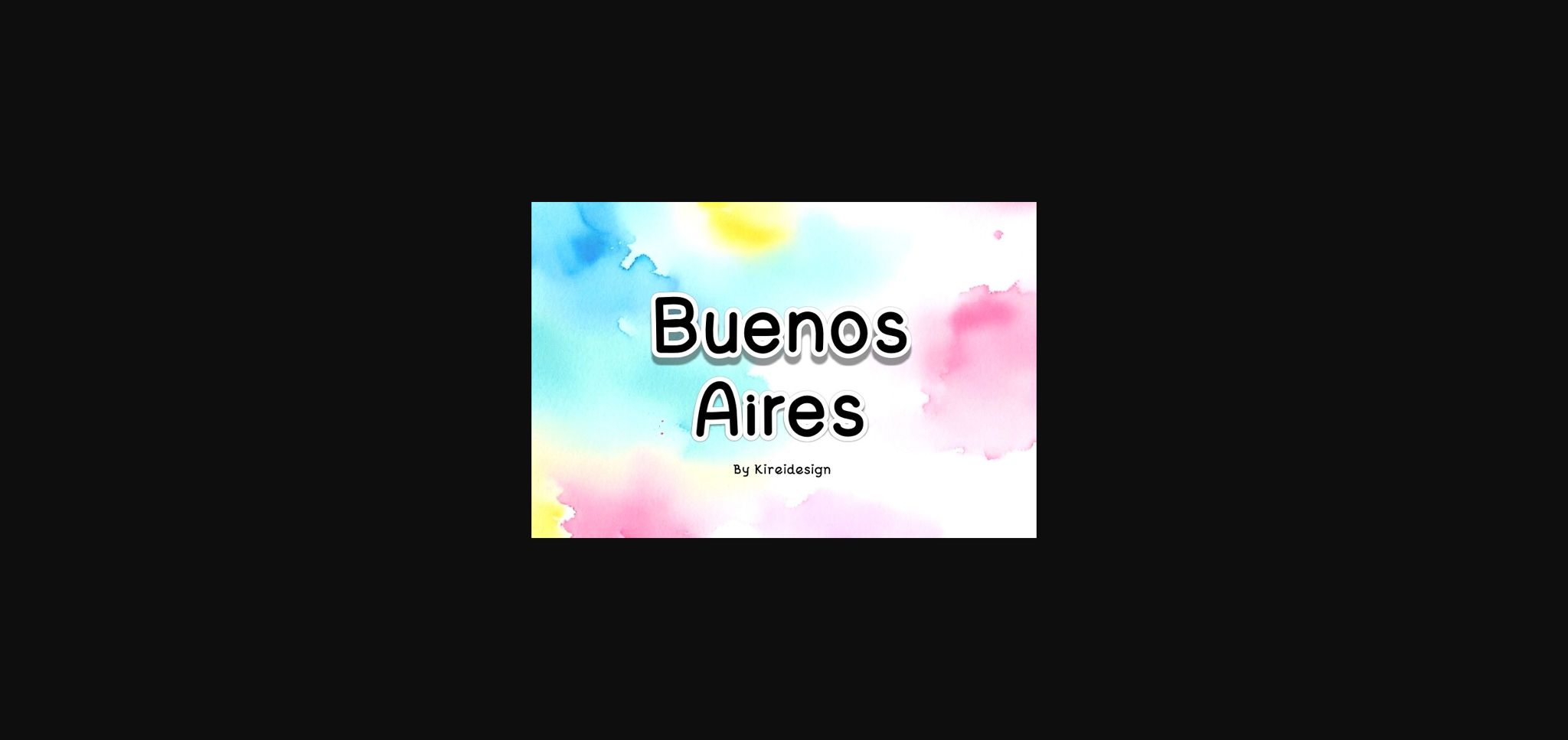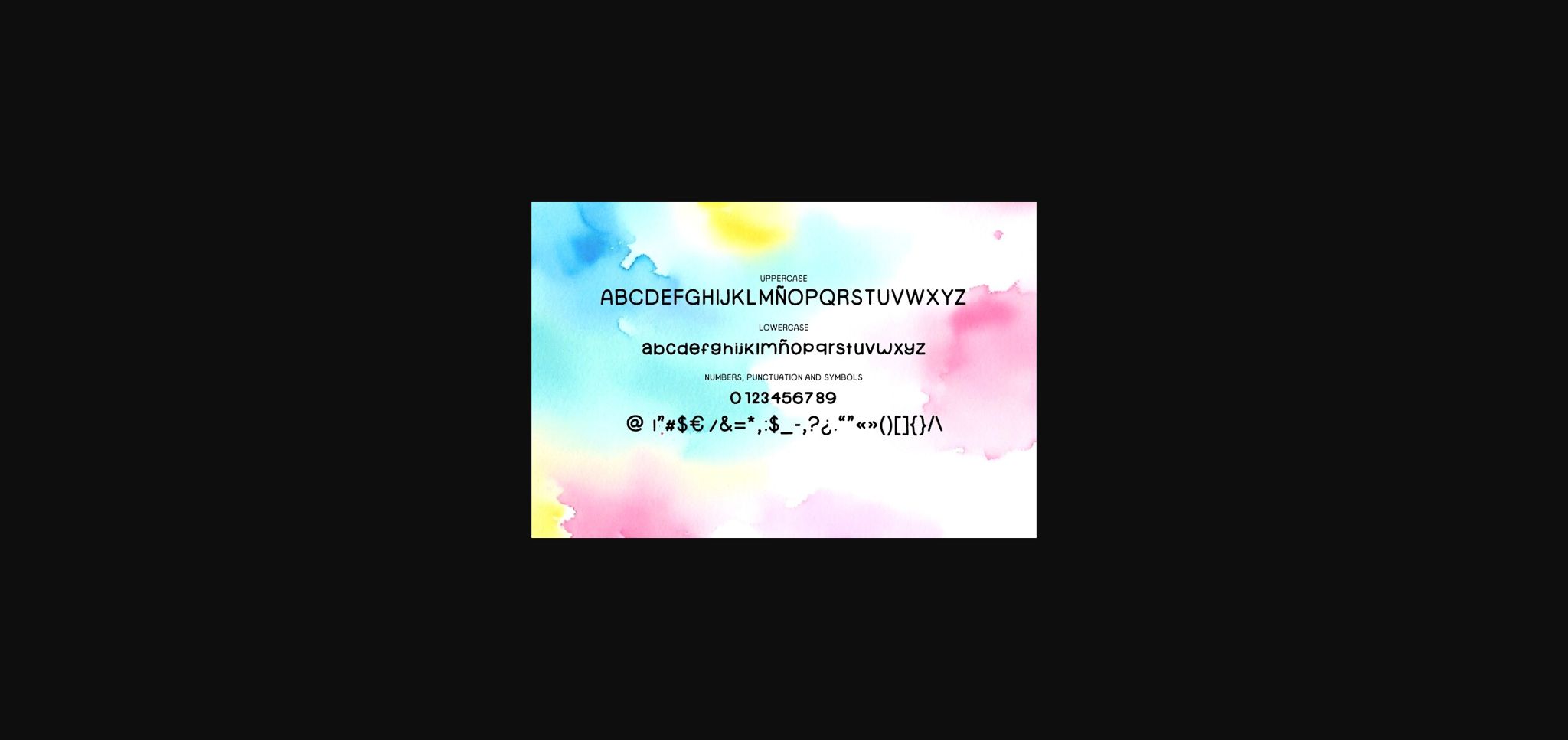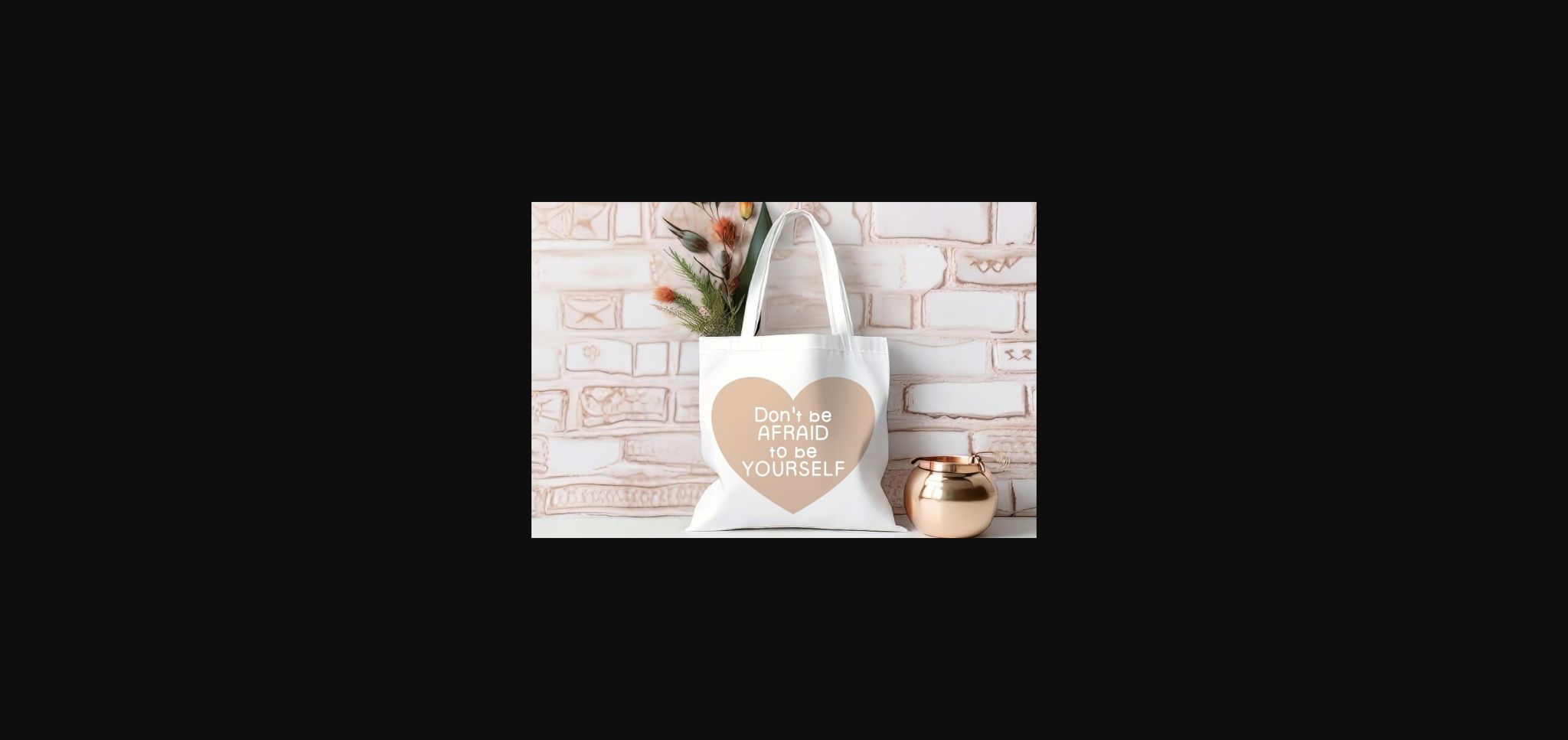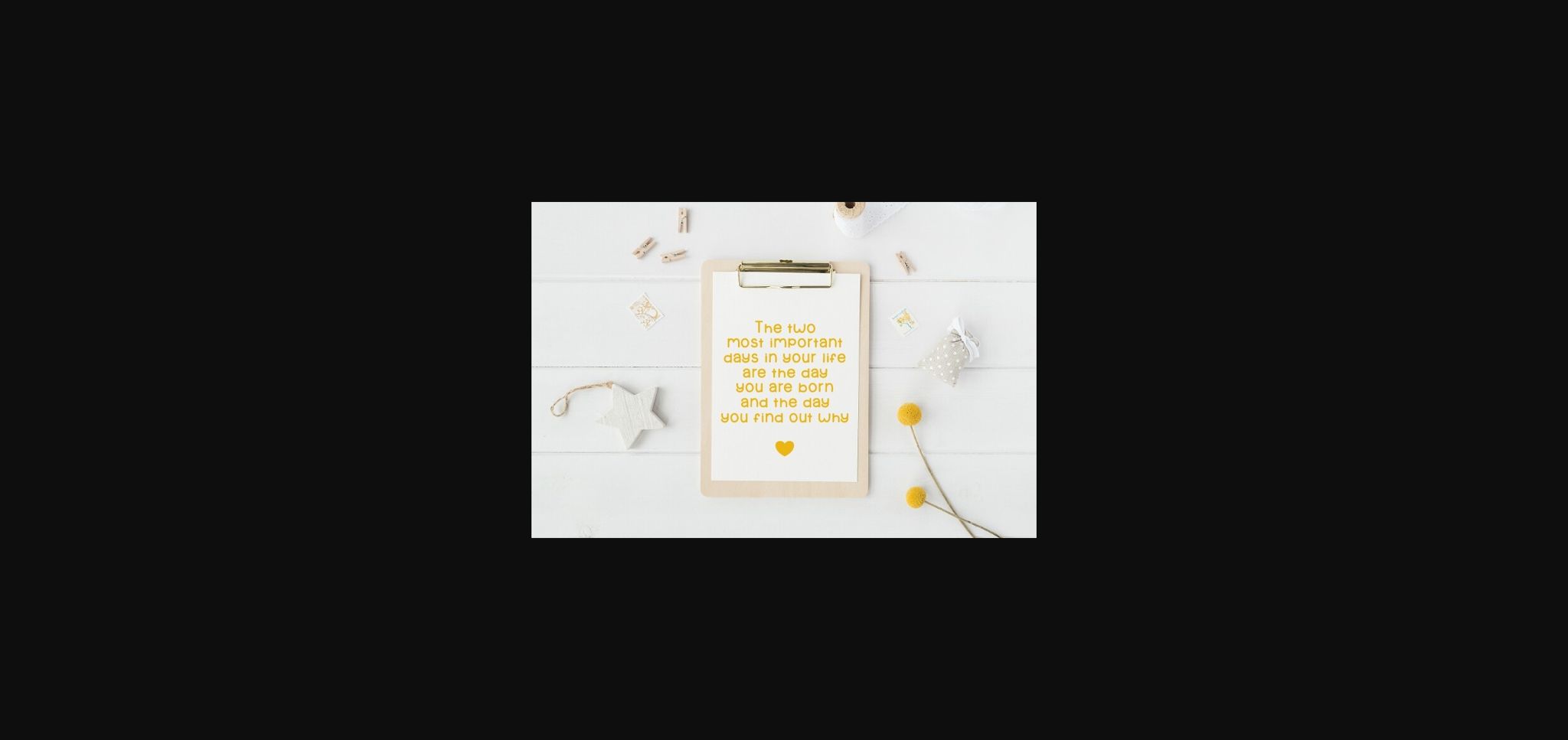
Buenos Aires Font
About Buenos Aires Font
Buenos Aires is a cute, fun, and easy-to-read font, perfect for creating posters, invitations, notes, digital designs, presentations and a variety of other design projects.